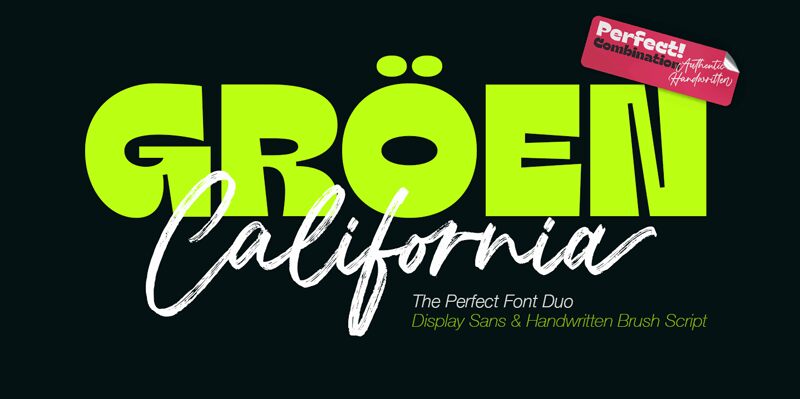
Groen California is a captivating display font created by Fargun Studio. With its bold, groovy style, this font exudes a sense of retro-inspired flair and contemporary charm. The strong, geometric letterforms and distinctive character shapes instantly command attention, making it an ideal choice for eye-catching headlines, impactful branding, and dynamic typographic compositions.
Groen California's versatility shines through its ability to effortlessly adapt to a wide range of design contexts. Its robust, attention-grabbing presence lends itself well to projects that require a bold, attention-grabbing aesthetic, such as posters, album covers, event promotions, and product packaging. Additionally, the font's unique personality can elevate the visual appeal of modern web designs, logo designs, and editorial layouts, adding a touch of vintage-inspired character to the overall aesthetic.
Groen California Sans
Fargun Studio